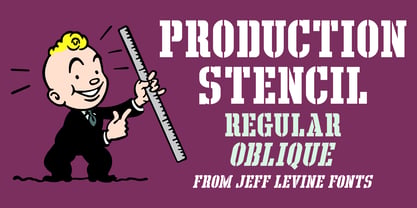
Production Stencil JNL
by Jeff Levine
In the 1956-57 edition of Broadcasting Telecasting, various ads utilized a bold stencil font to promote various TV programs.
This condensed slab serif stencil design inspired Production Stencil JNL, which is available in both regular and oblique versions.